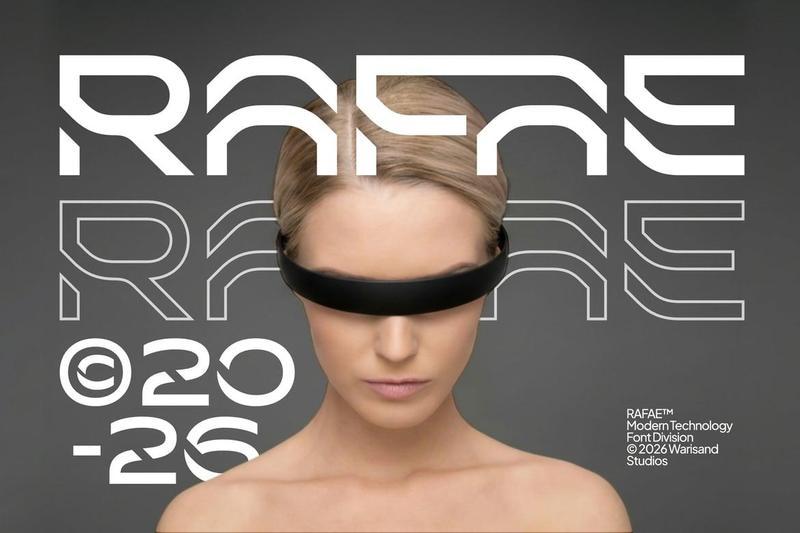
Rafae – Modern Font BCVS44T
**Rafae** is a modern logo font designed with a bold futuristic personality, perfect for brands that want to look powerful, clean, and ahead of the curve. Built with sharp square forms, digital rhythm, and tech-inspired letter construction, Rafae brings a strong visual identity to technology brands, gaming titles, movie posters, animation projects, and modern creative campaigns. Its clean structure makes every word feel sleek, premium, and instantly recognizable.
With its futuristic font style and bold geometric details, Rafae is made for designers who need fonts that stand out in high-impact visuals. Whether used for a tech logo, digital product branding, gaming interface, sci-fi poster, movie title, or animation headline, Rafae delivers a confident modern look with strong readability and cinematic energy. This font is a perfect choice for projects that need a clean, technology-driven, and futuristic visual voice.
Designed for creatives who want stylish, functional, and flexible typography for business identities, promotional materials, and standout visual projects.